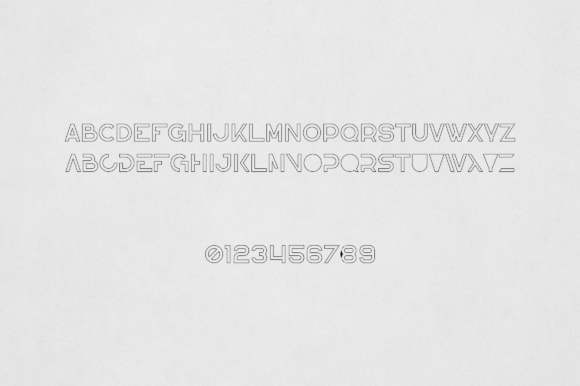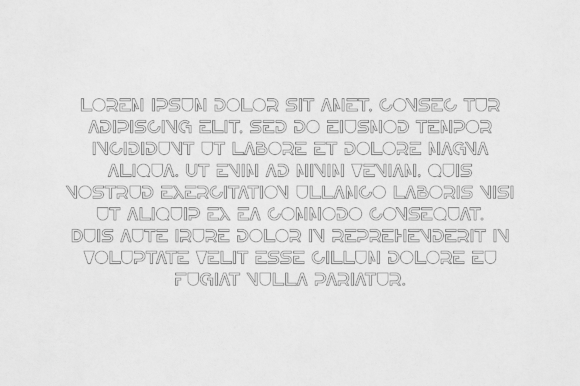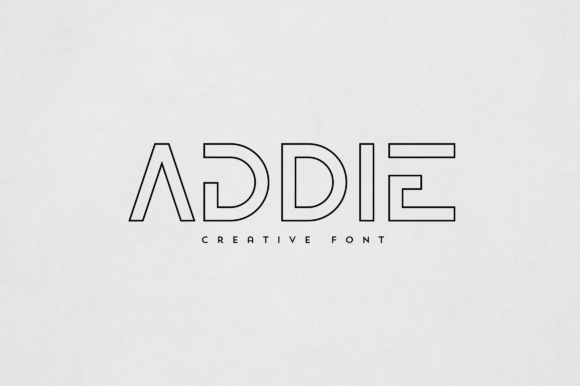
Introducing Addie Font: Elevate Your Typography with Elegance and Versatility
In the world of typography, a font can make or break the visual appeal of a design. For designers and crafters looking to add a touch of sophistication and uniqueness to their projects, the Addie Font is an excellent choice. This elegant and versatile display font is designed to make your typography truly stand out, whether you’re working on a logo, branding, headline, or plain text.
What Makes Addie Font Special?
Addie Font is not just another font; it’s a design statement. Its elegant and versatile nature makes it perfect for a wide range of applications, from branding projects and home-ware designs to product packaging and magazine headers. The font’s unique characteristics allow it to seamlessly integrate with any background image, making it an ideal choice for designers looking to add a stylish text overlay.
One of the standout features of Addie Font is its versatility. It’s a font that can be used in various design projects, including:
• Branding Projects: Create a lasting impression with a unique and elegant font that reflects your brand’s personality.
• Home-Ware Designs: Add a touch of sophistication to your home-ware designs, making them stand out from the crowd.
• Product Packaging: Make your product packaging more appealing and eye-catching with a font that exudes elegance.
• Magazine Headers: Create stunning magazine headers that grab the reader’s attention.
Why Choose Addie Font?
There are several reasons why designers and crafters should consider Addie Font for their projects:
• Elegance: Addie Font brings an unparalleled level of elegance to any design, making it perfect for projects that require a sophisticated look.
• Versatility: The font’s versatility means it can be used in a wide range of design projects, from digital to print.
• Uniqueness: With Addie Font, you can ensure that your typography stands out from the crowd, making your design truly unique.
• Easy to Use: The font is easy to use and can be seamlessly integrated into any design project.
Tips for Using Addie Font
To get the most out of Addie Font, here are some tips:
• Experiment with Sizes: Don’t be afraid to experiment with different font sizes to create visual hierarchy and emphasis.
• Play with Colors: Addie Font looks stunning in various colors. Experiment with different color combinations to find the one that works best for your design.
• Mix and Match: Consider mixing and matching Addie Font with other fonts to create a unique and visually appealing typography.
Font Name Addie Font
Author vladfedotovv
Addie Font is a game-changer for designers and crafters looking to elevate their typography with elegance and versatility. Its unique characteristics, ease of use, and versatility make it an excellent choice for a wide range of design projects. Whether you’re working on a branding project, home-ware design, product packaging, or magazine header, Addie Font is sure to make your typography truly stand out.